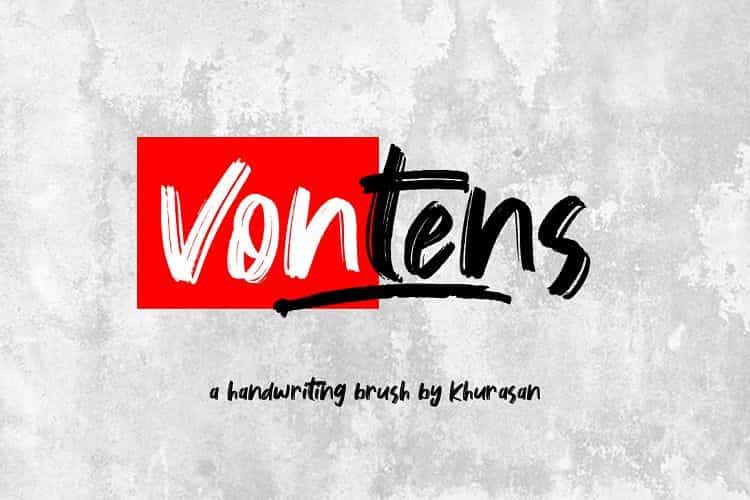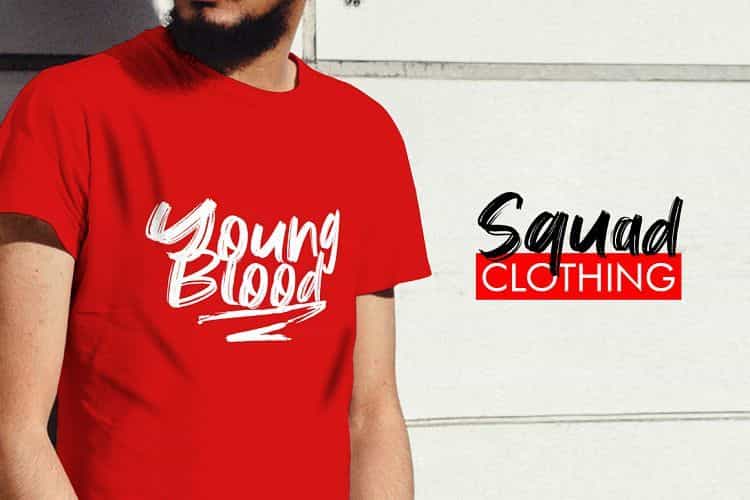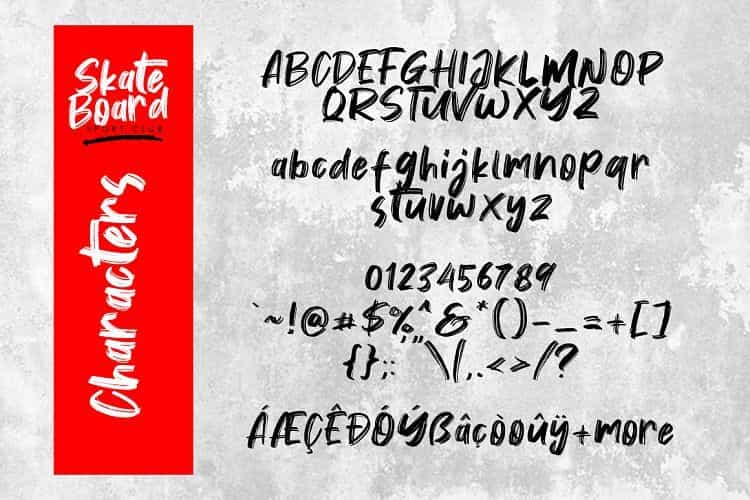
Introduce to the Vontens Font!This is a rough brush script font with a pronounced style and a dramatic movement this font is superb for your next creative project!It is created and distributed by khurasan. It is a new handwritten font brush, of an elegant and vintage feel character set.